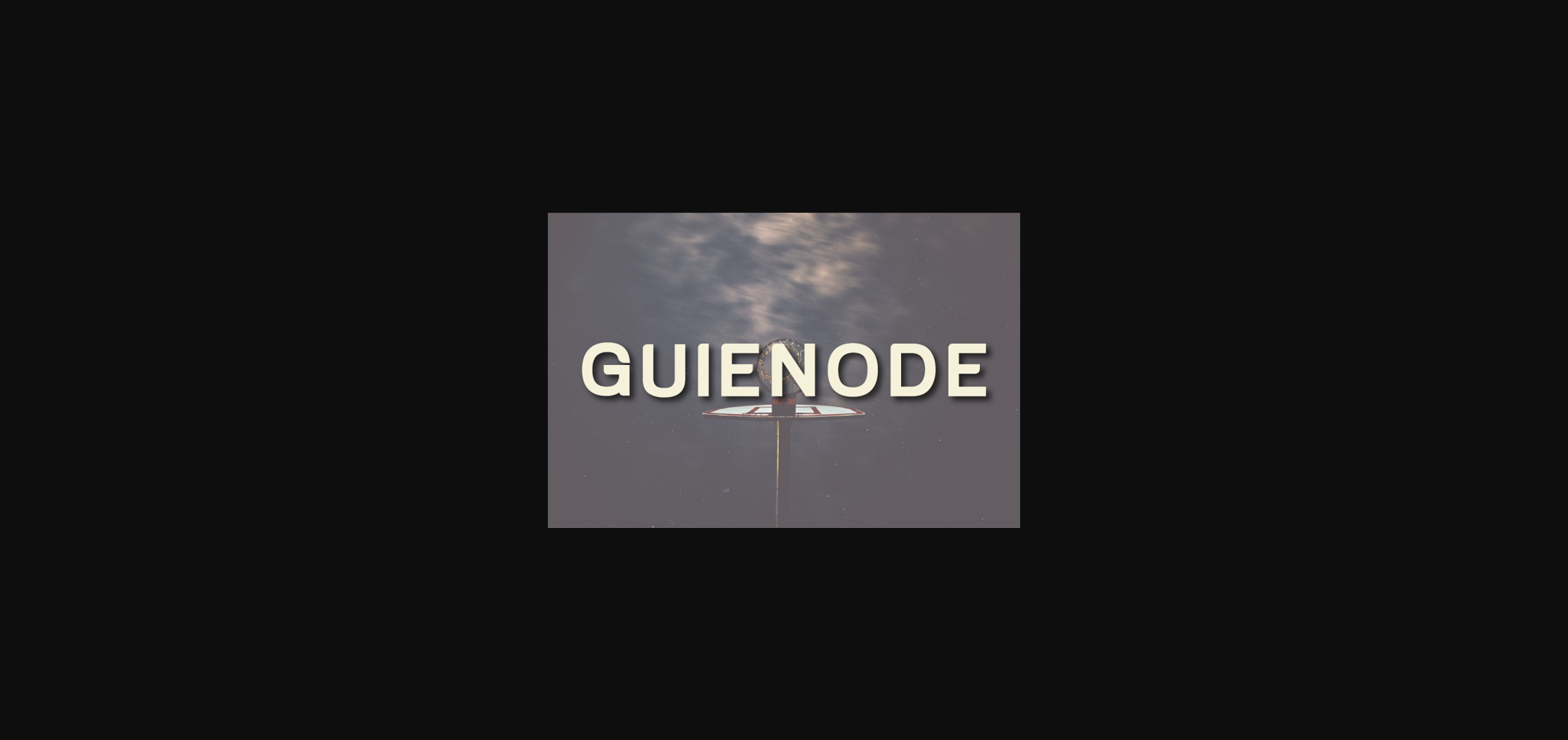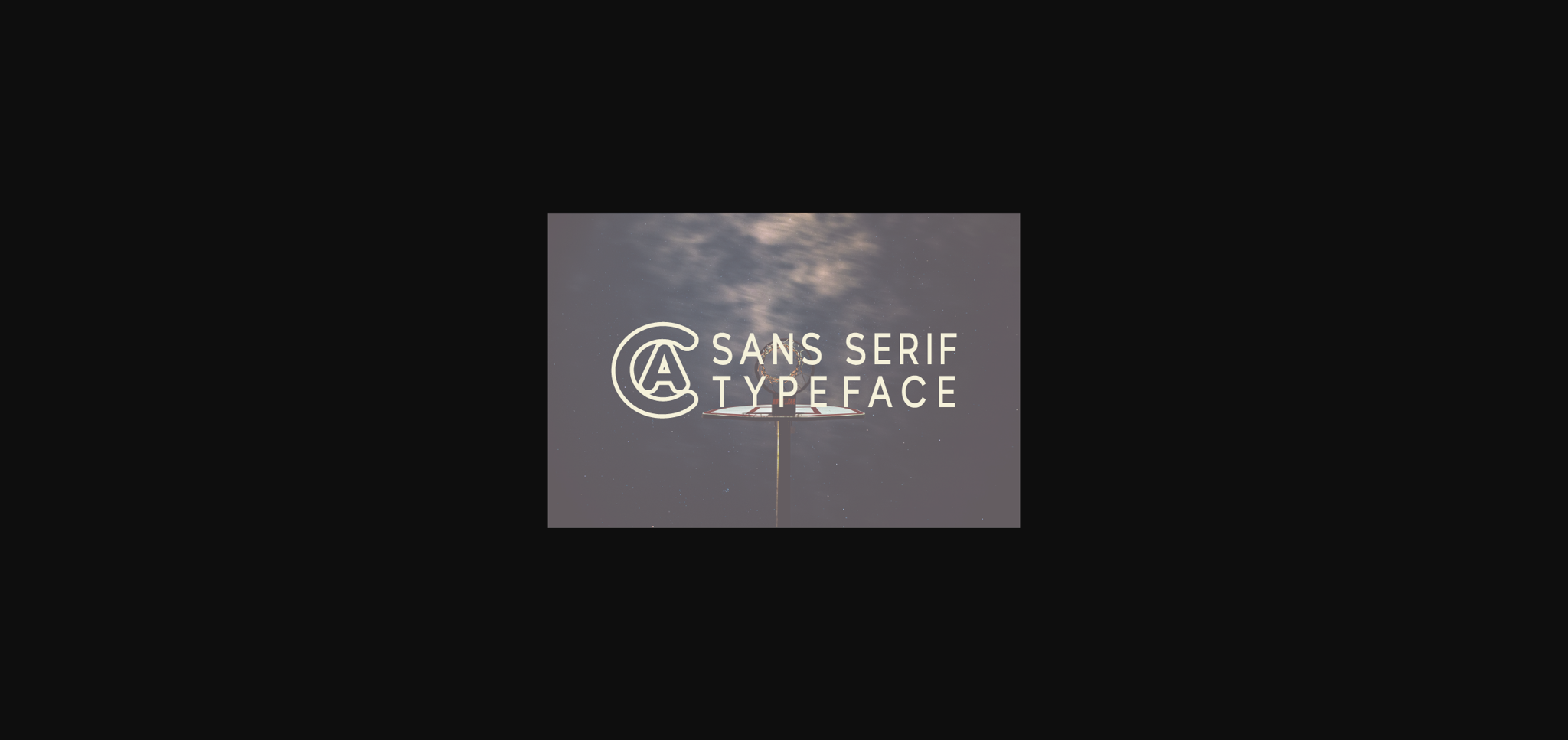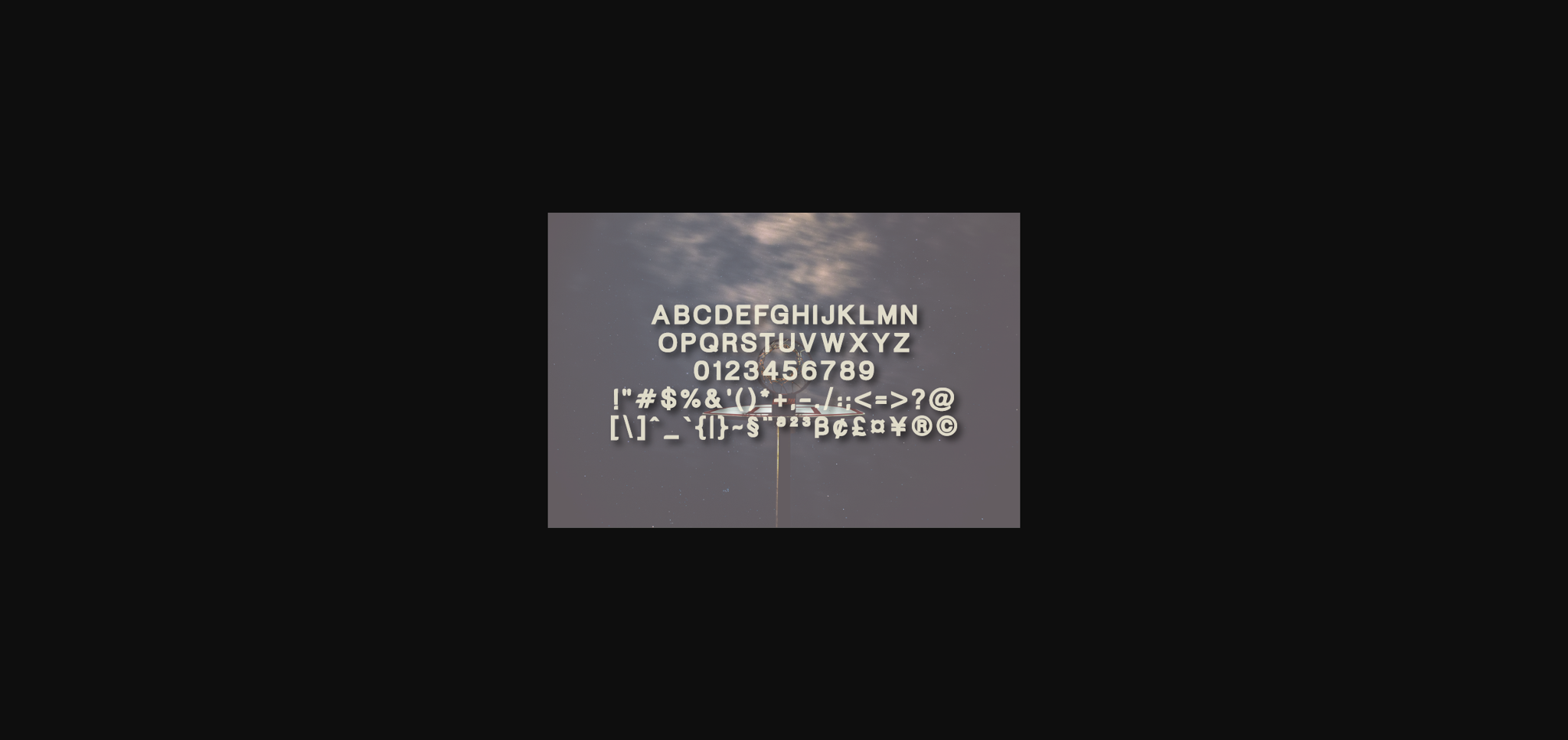
About Guienode Font
Guienode is a simple and clean sans serif font. It can effortlessly be added to a large set of ideas, so add it to your creations and notice how it makes them stand out!